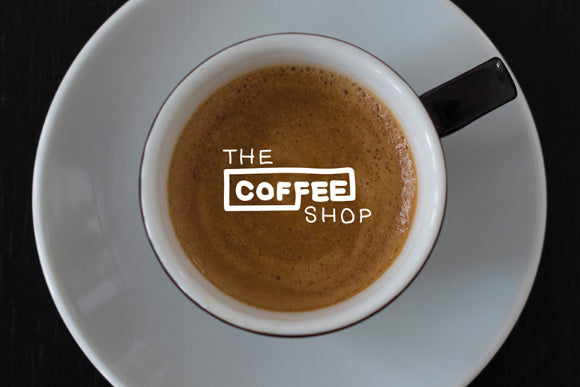
Free Coffee Shop Font Family
Download and enjoy this free coffee shop font family. Cool typeface to showcase your designs in a modern way. Download this typeface from the original source of Free Design Resources. Easily amaze your audience with this cool font and make your graphic designs pop up from the crowd.